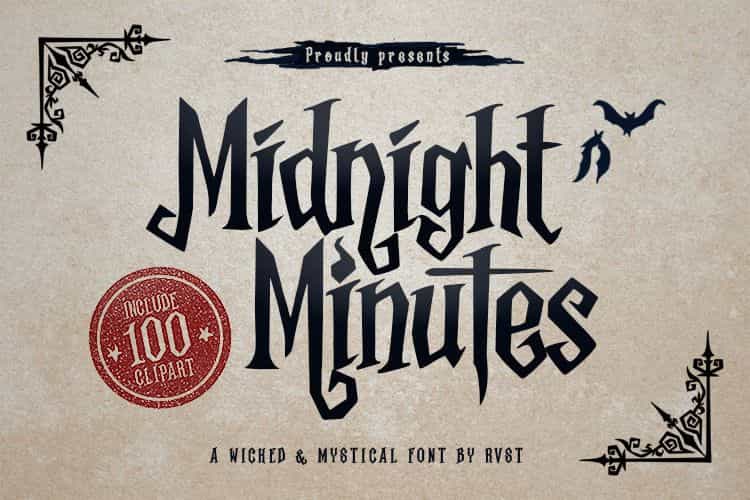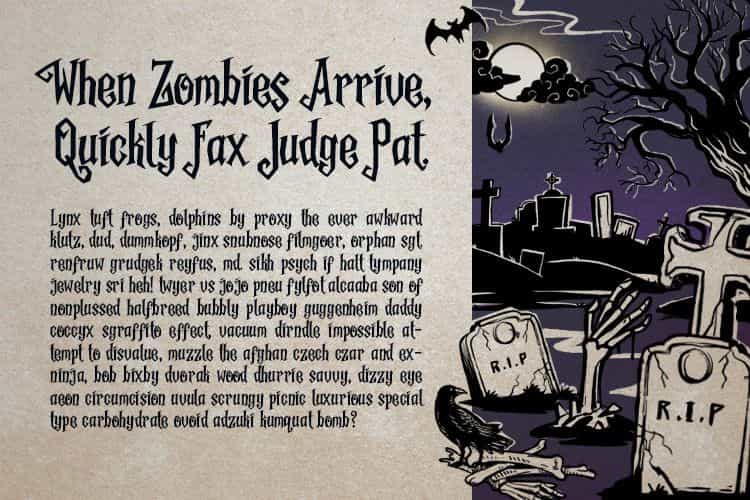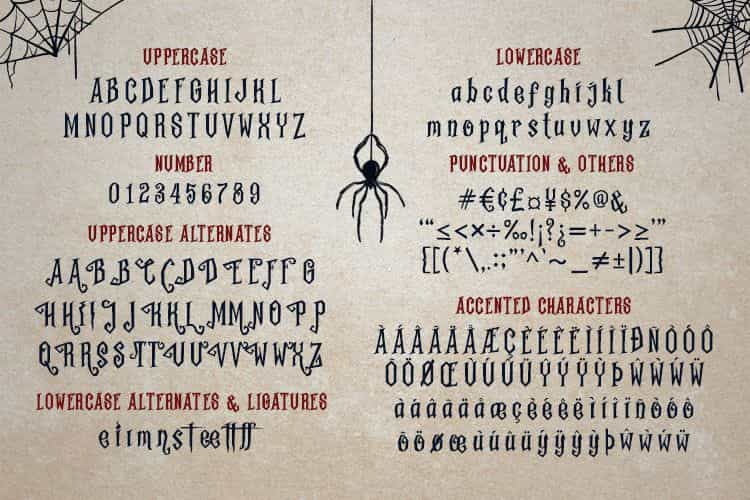
Midnight Minutes is a display font with the feeling of Fantasy, Creepy & Mystical and the type of curly & sharp as horror fantasy movie and books. Midnight Minutes gives you a scary wicked and mysterious environment to your graphic design projects.